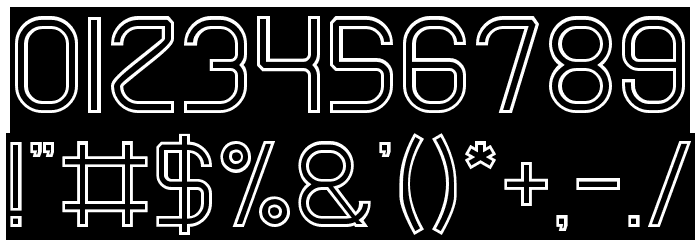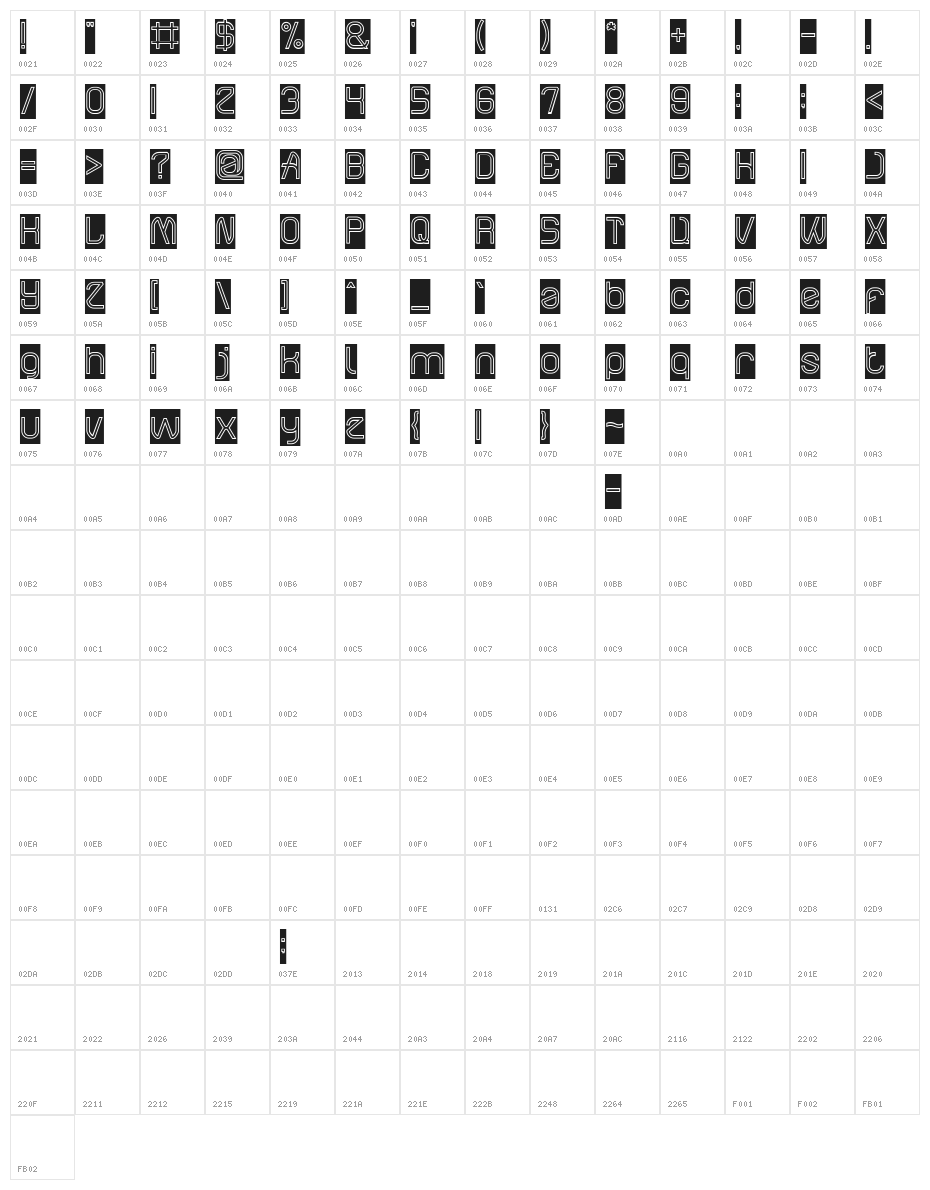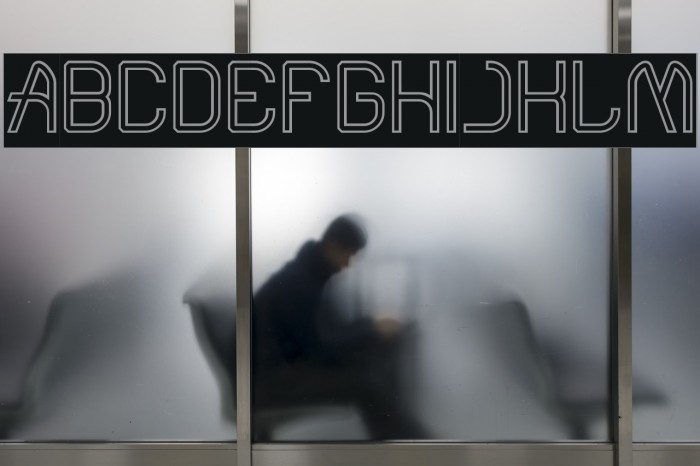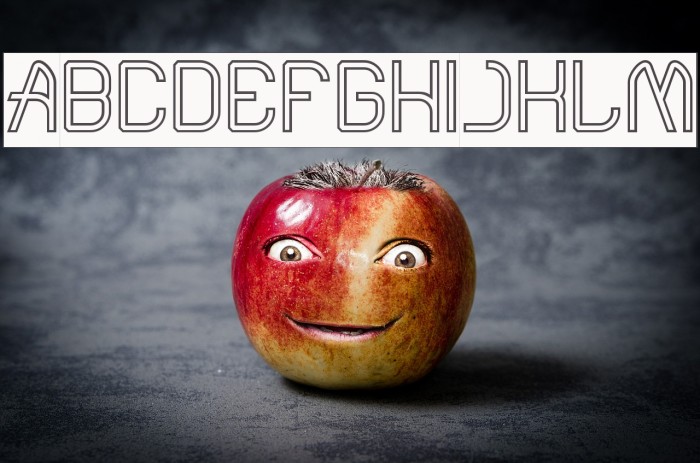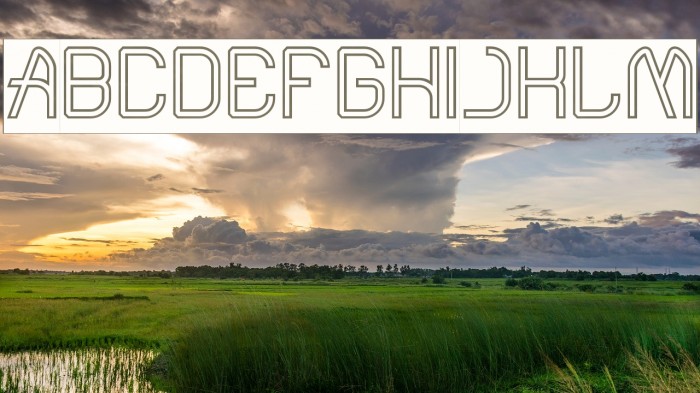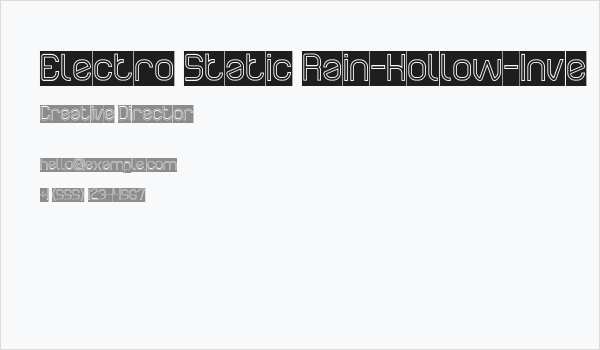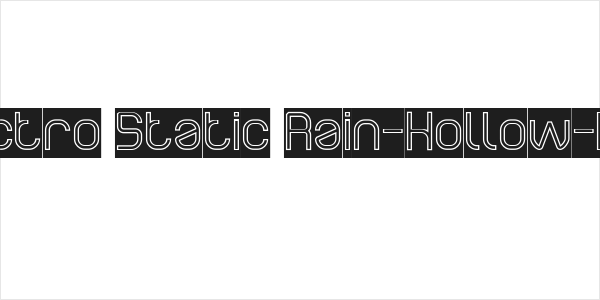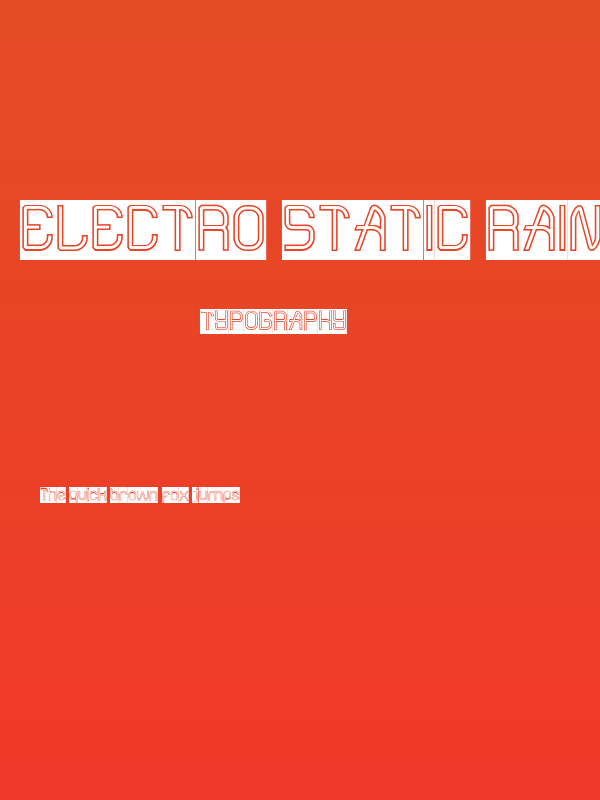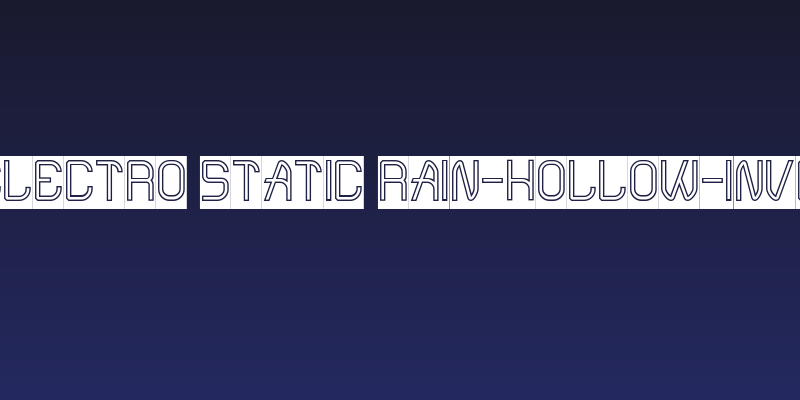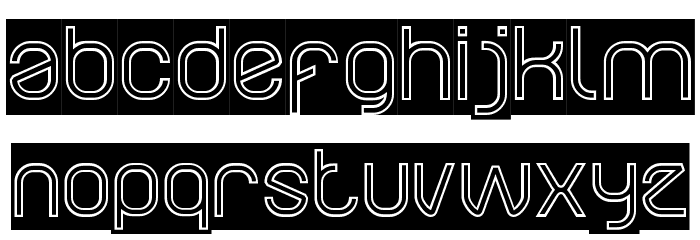
Electro Static Rain-Hollow-Inve Font
Electro Static Rain-Hollow-Inve Description
This font features a futuristic and geometric design with hollow, outlined characters. Each letter is constructed with clean, precise lines that create a sense of modernity and innovation. The uppercase and lowercase letters maintain a consistent style, emphasizing symmetry and balance. The numerals and special characters follow the same design principles, ensuring uniformity across all glyphs. The overall appearance is sleek and minimalistic, making it suitable for projects that require a contemporary and tech-inspired aesthetic.